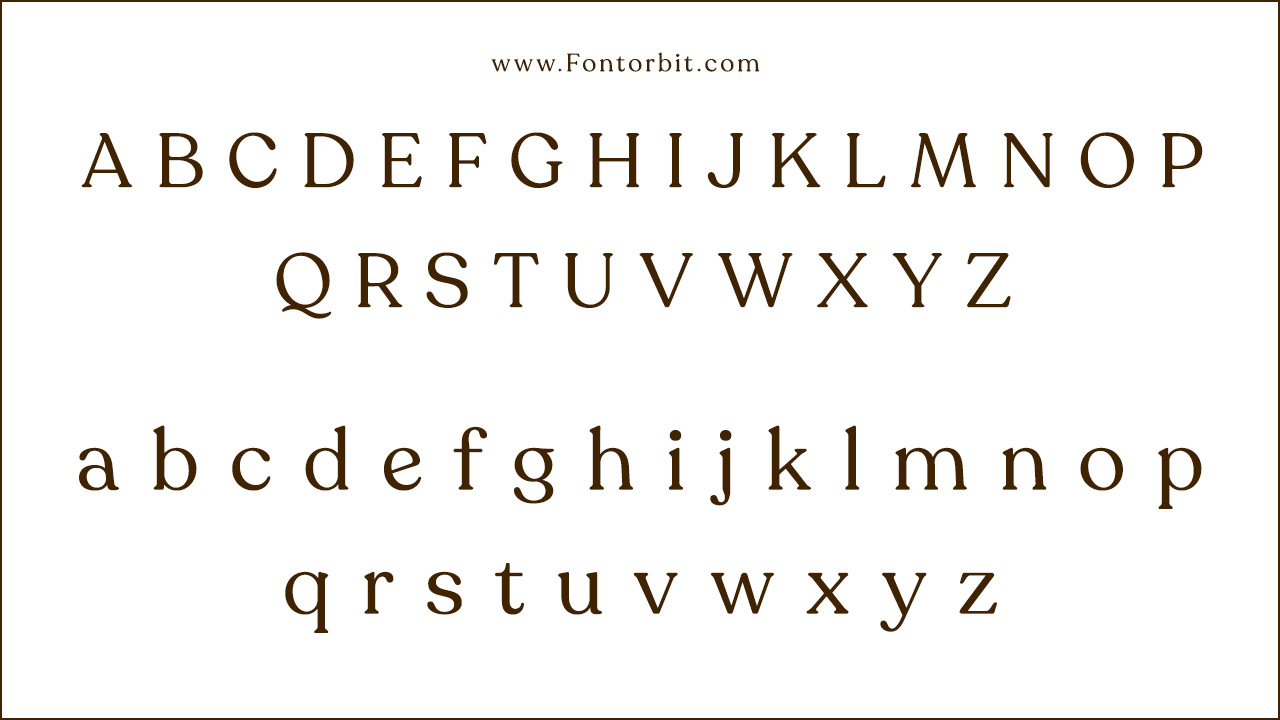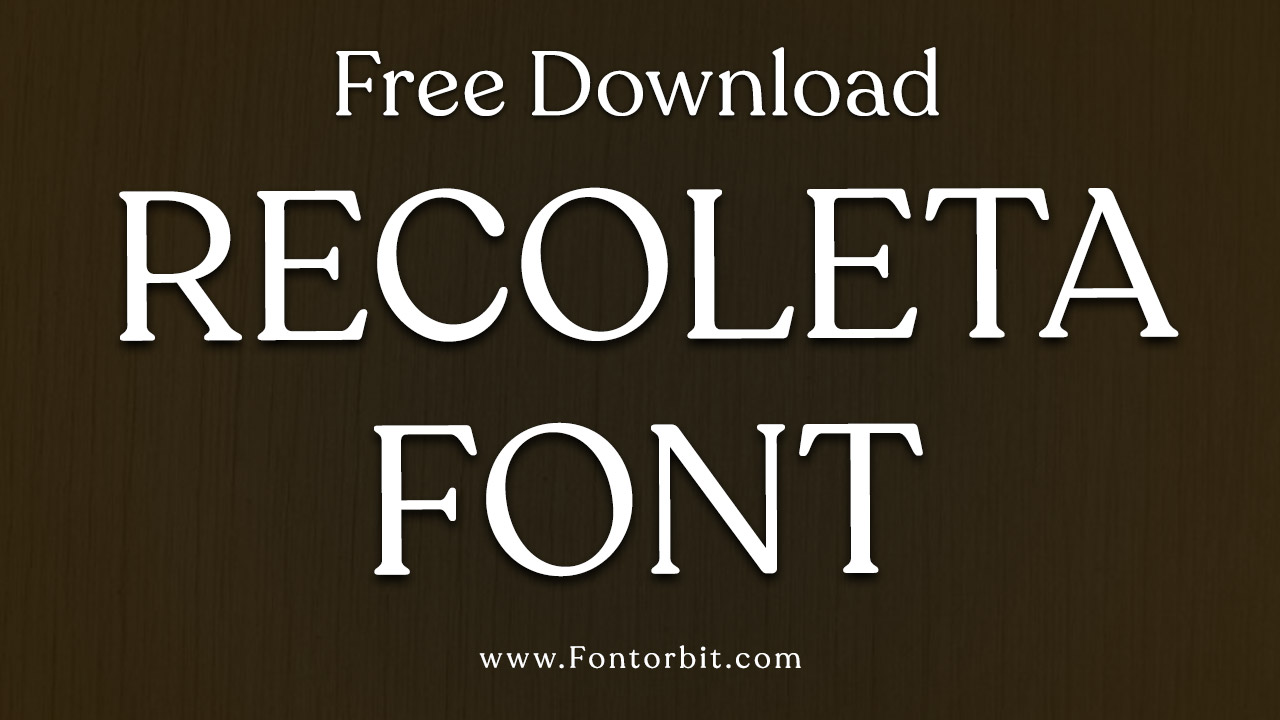
Recoleta font is a distinctive serif typeface designed by Jorge Cisterna and published by Latinotype on June 5, 2018. Known for its unique blend of retro 1970s influences and modern design elements, Recoleta features a variety of weights and styles, making it versatile for a range of applications. The font is available for free personal use, with commercial licensing options provided by Latinotype.
Notable Uses Of Recoleta Font
- Logo design
- Editorial and advertising projects
- Business cards
- Promotional materials
Recoleta Font is frequently used in branding and marketing materials for its retro-modern blend. It is also applied in high-impact headlines and body text for its versatile style.
Recoleta is a sophisticated serif typeface that combines elements from popular 1970s fonts. It offers retro charm and modern versatility. With a wide range of weights and styles, it excels in both body text and headlines, making it a valuable choice for various design projects.
1.What Are The Benefits Of Using Recoleta Font In Web Design?
Recoleta’s blend of retro and modern styles offers high readability and a distinctive look, making it ideal for impactful headlines and elegant body text in web design.
2.What Are The Best Practices For Pairing Recoleta Fonts With Other Fonts?
Pair Recoleta with complementary fonts like Optima for a harmonious look or more traditional serifs like Playfair Display for a classic touch.
3.What Are The Characteristics Of Recoleta Font?
Recoleta features a mix of soft, rounded serifs and flowing shapes with sharp edges. Its high readability and range of weights make it versatile for various design needs.
4.What Is The Readability Of Recoleta Font?
Thanks to its clear, elegant design, Recoleta is excellently readable and suitable for body text and headlines in various media.